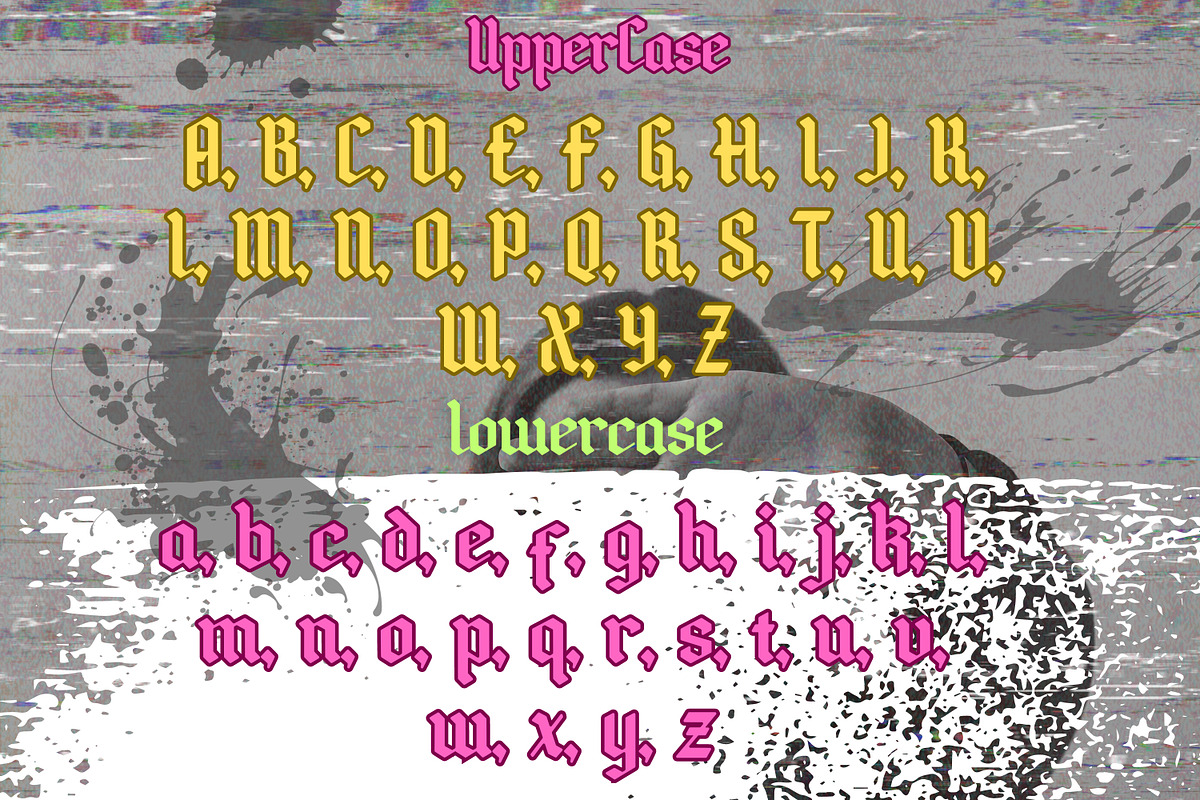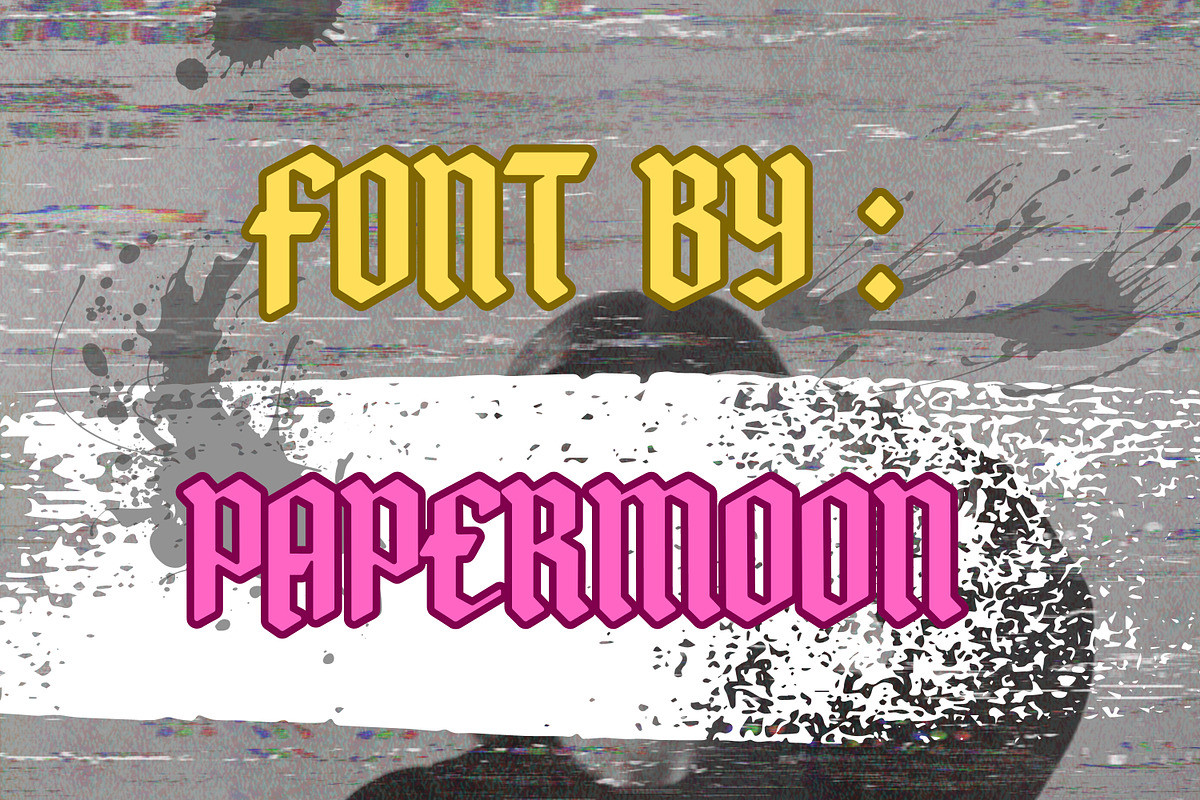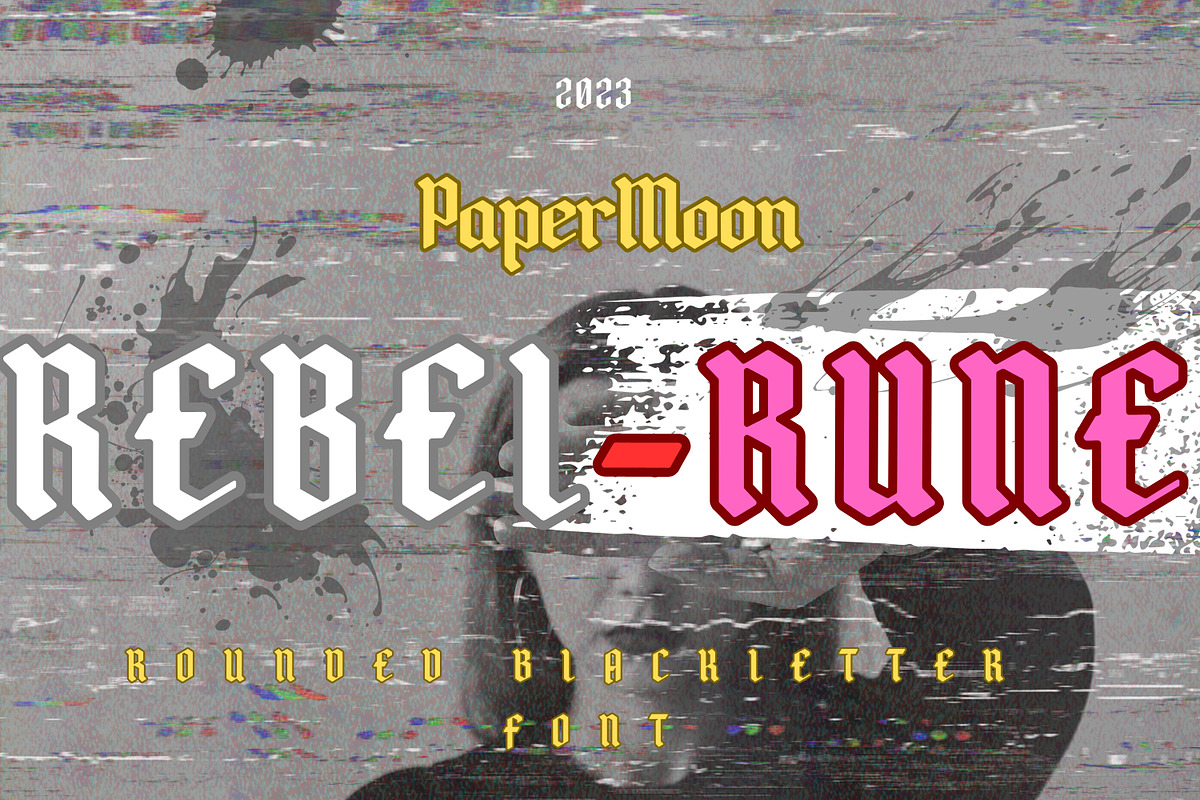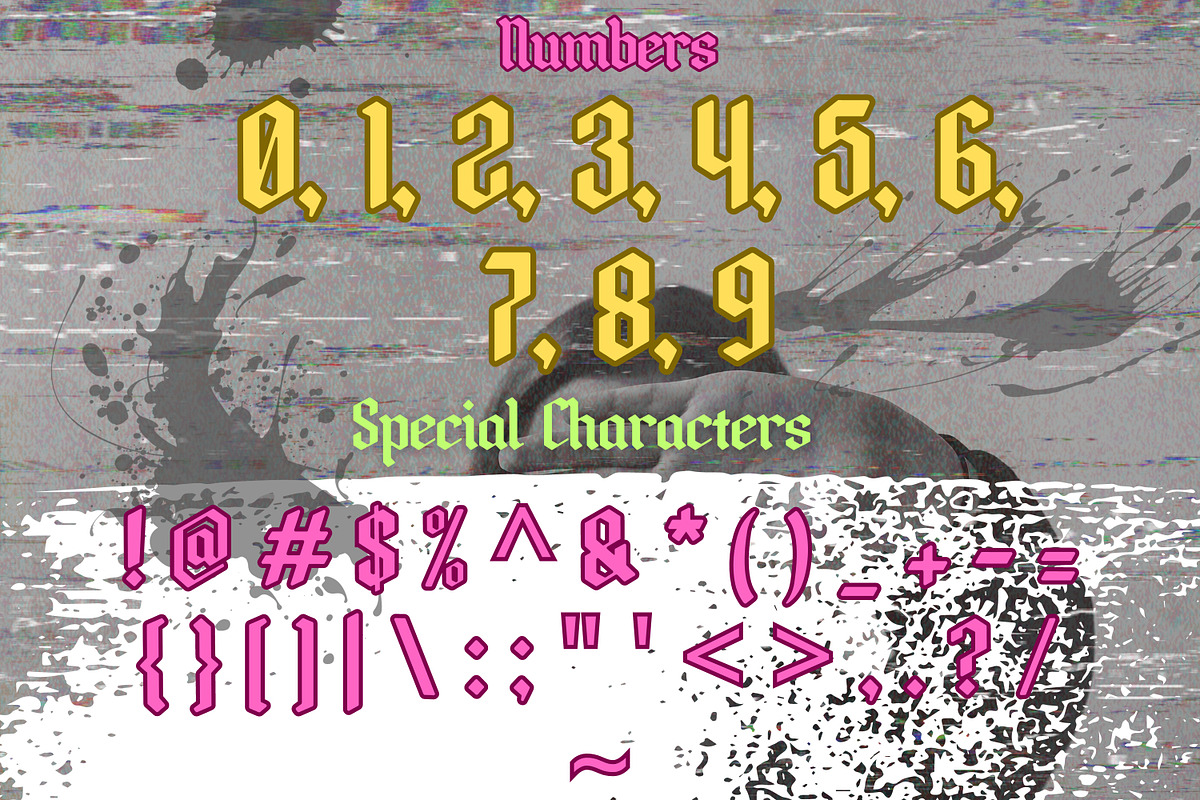
RebelRune - Rounded Blackletter Font
Introducing "RebelRune" - A Retro Blackletter Font with a Bold Twist
Embrace the allure of the past with "RebelRune," a blackletter font that seamlessly fuses the retro style with a touch of modern elegance. Its refined, rounded edges add a unique and bold character to your creative projects, promising to ignite your inspiration.
Unlock your design potential with "RebelRune" - a font that dares to be different. This typeface boasts alternative characters, ligatures, and comprehensive multi-language support, ensuring your designs can speak to a global audience.
"RebelRune" is your go-to choice for a wide range of applications, including eye-catching headings, attention-grabbing flyers, heartfelt greeting cards, captivating product packaging, enticing book covers, memorable printed quotes, striking logotypes, stylish apparel design, and mesmerizing album covers.
Uppercase: Command attention with uppercase characters.
Numerals & Punctuation: Crafted with precision for seamless integration into your designs.
Alternates & Ligatures: Infuse your work with distinctive and harmonious characters.
"RebelRune" is not just a font; it's a statement. It's the bridge between the past and the future, waiting for your imagination to bring it to life.